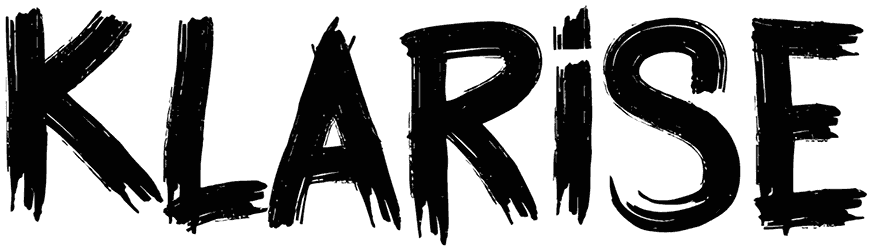
Klarise Font
You don’t have to over-design to create a prominent brush font, because Klarise font is ready to work for you. This font is ideal for loud messages and can also be used for merchandise, quote designs, and posters, even for horror movie titles.
Thanks to its bold strokes, this energetic yet tough and dry-finished font without lowercase letters can come out with a classic background to draw visitors’ attention.